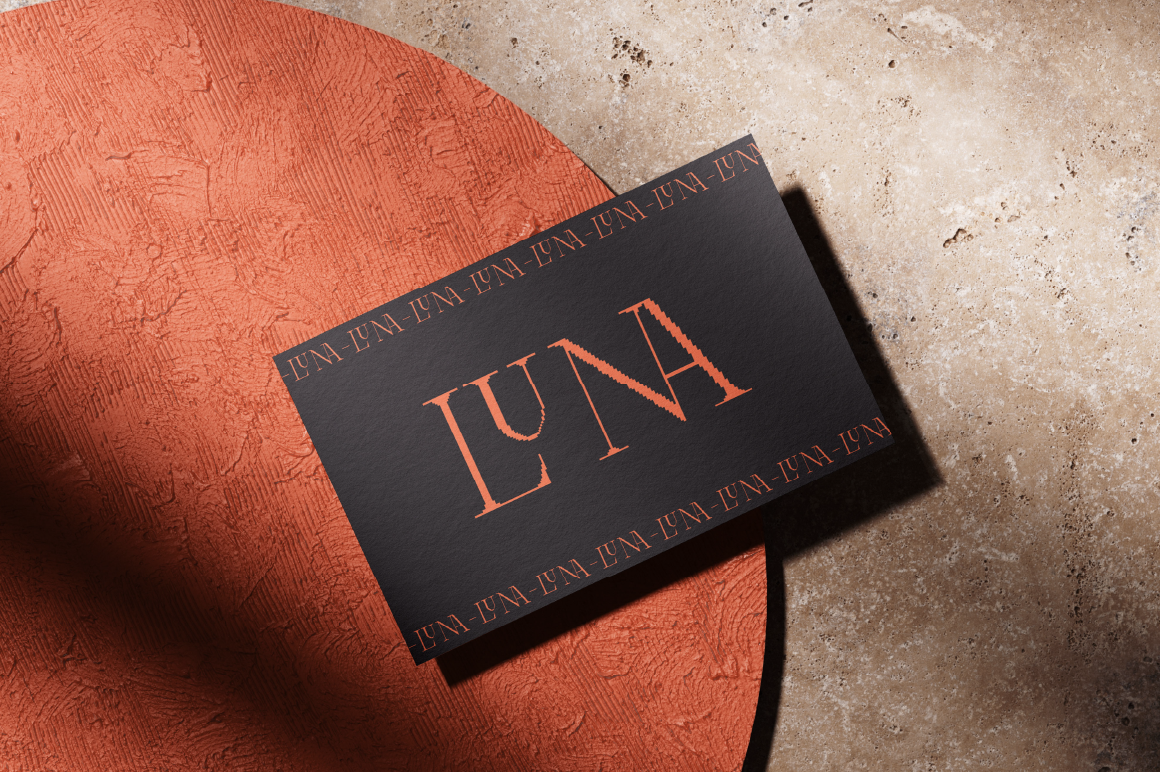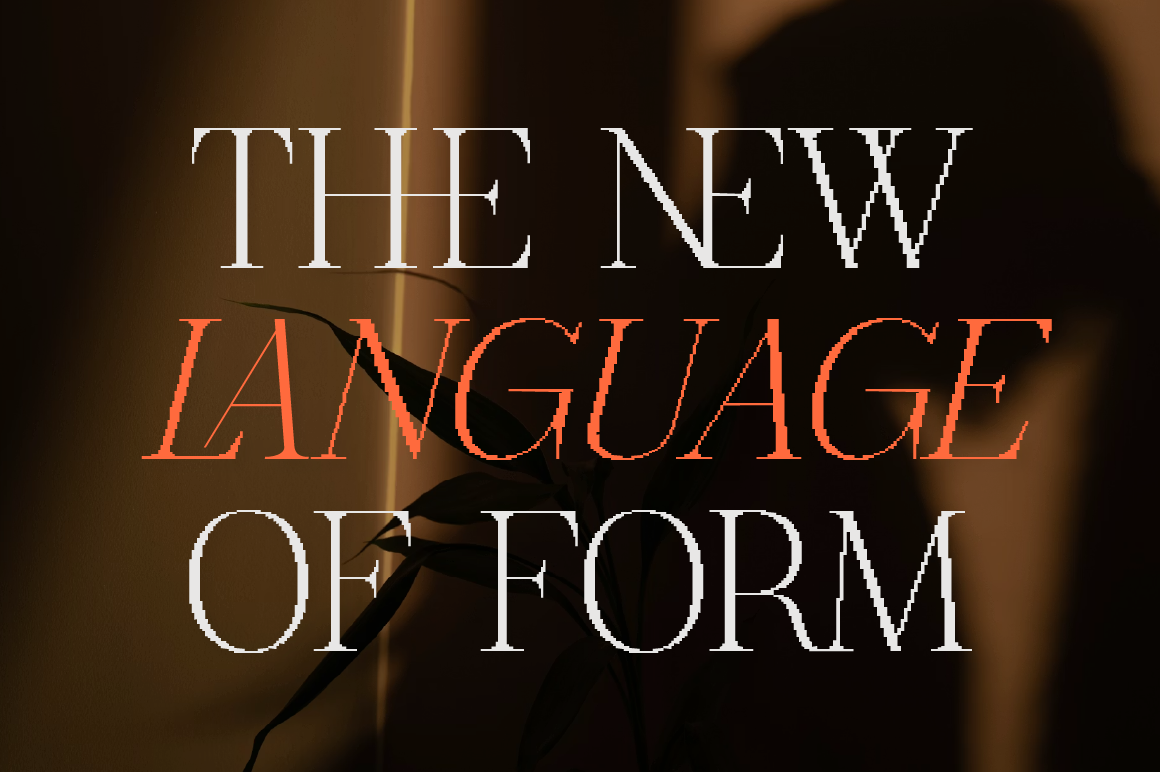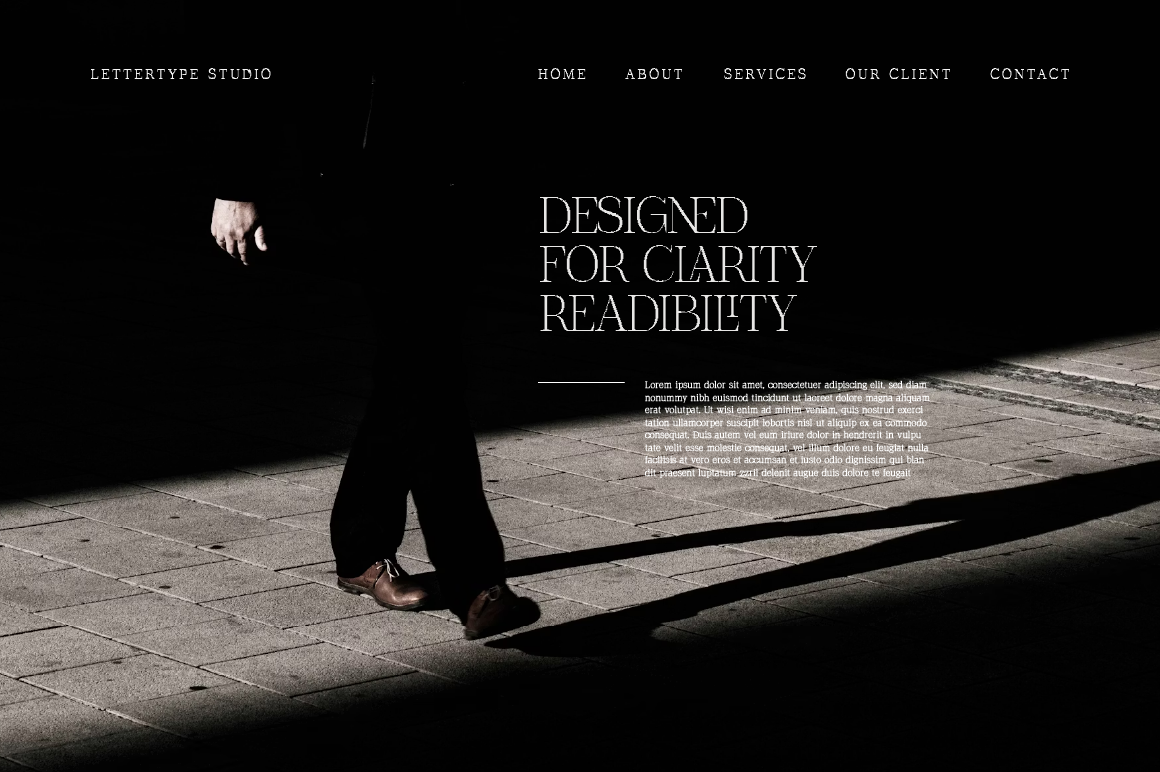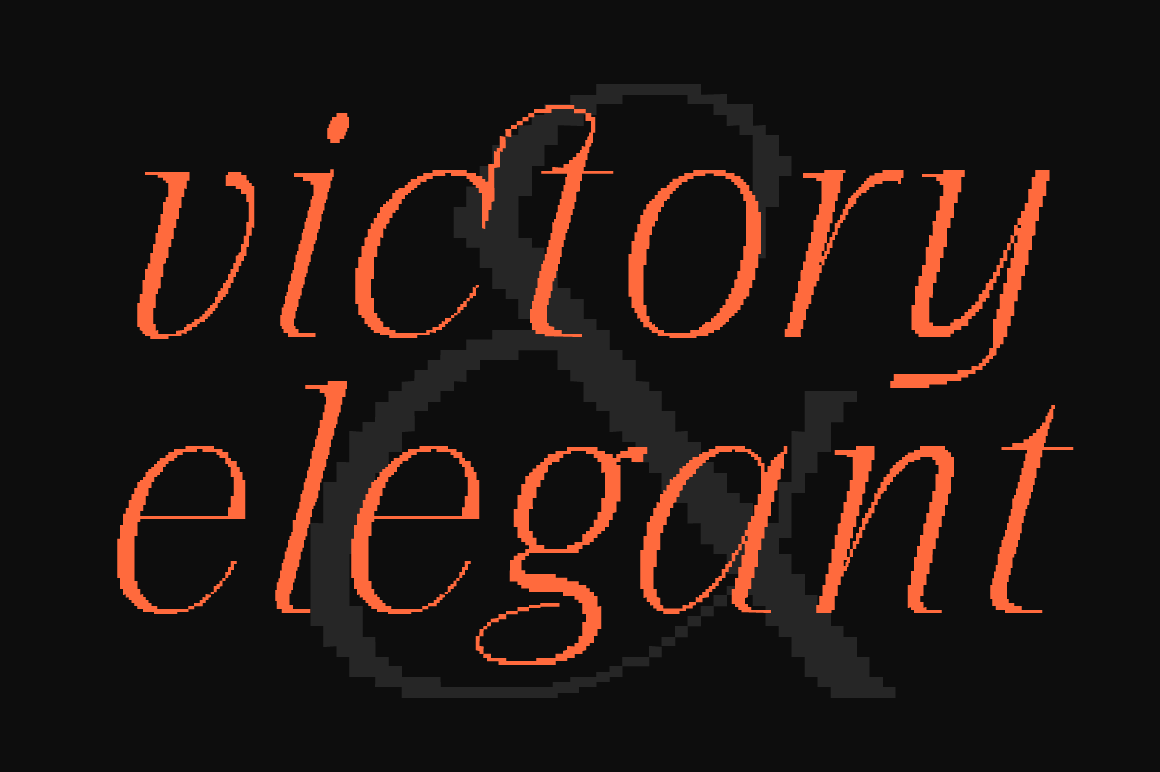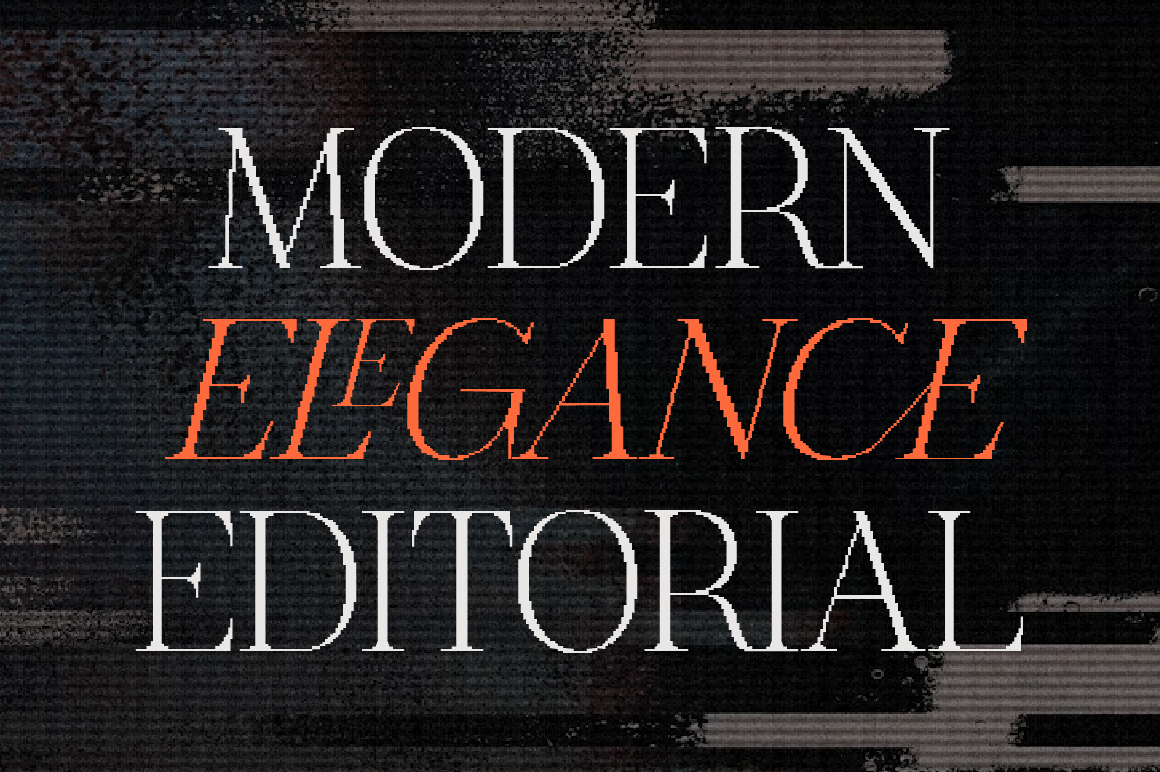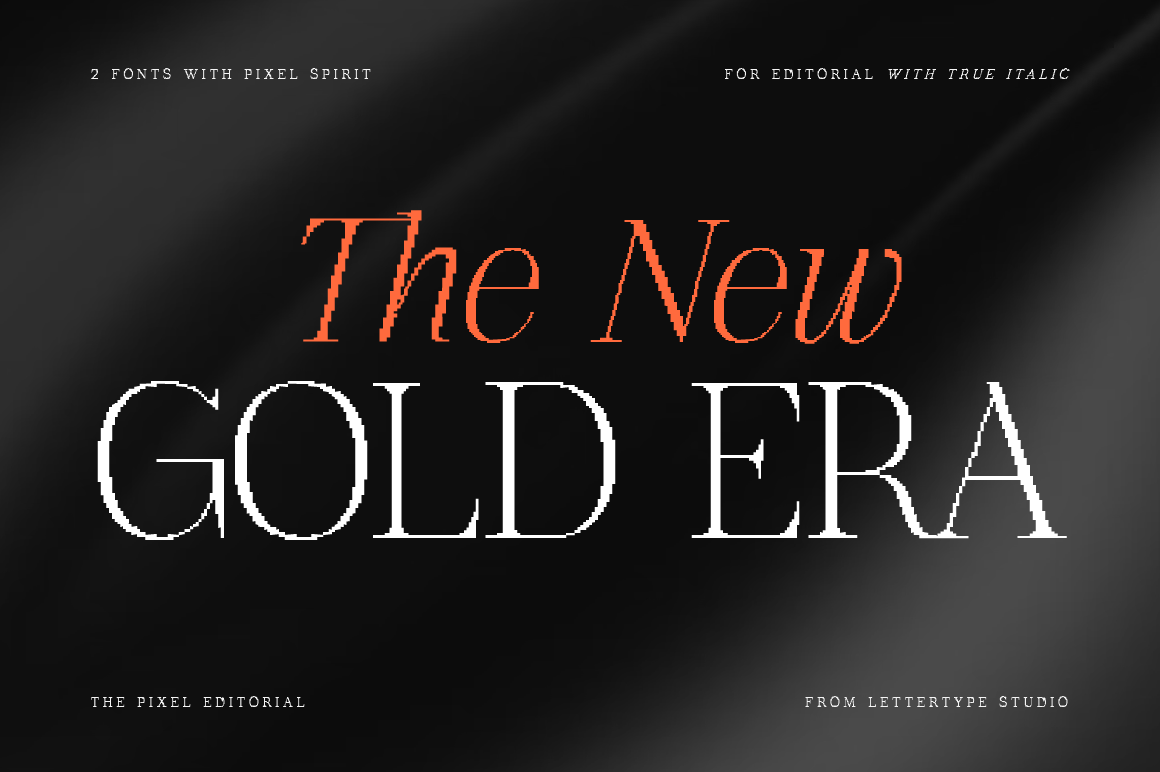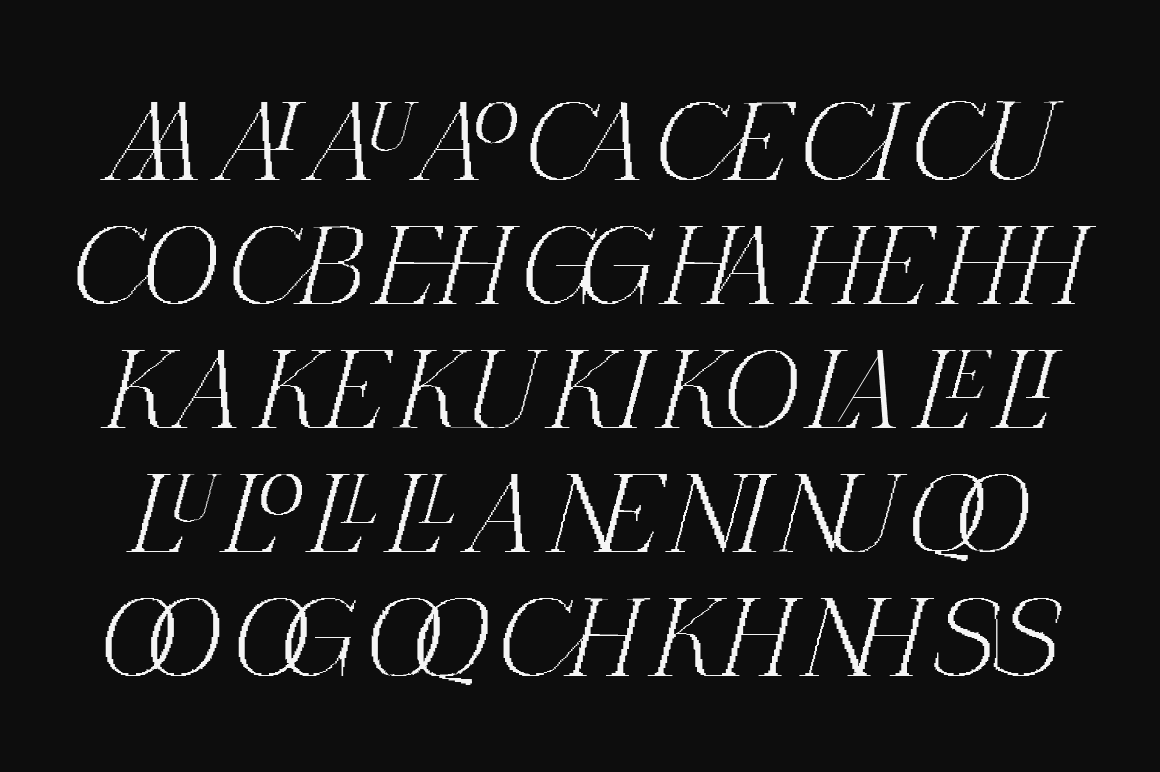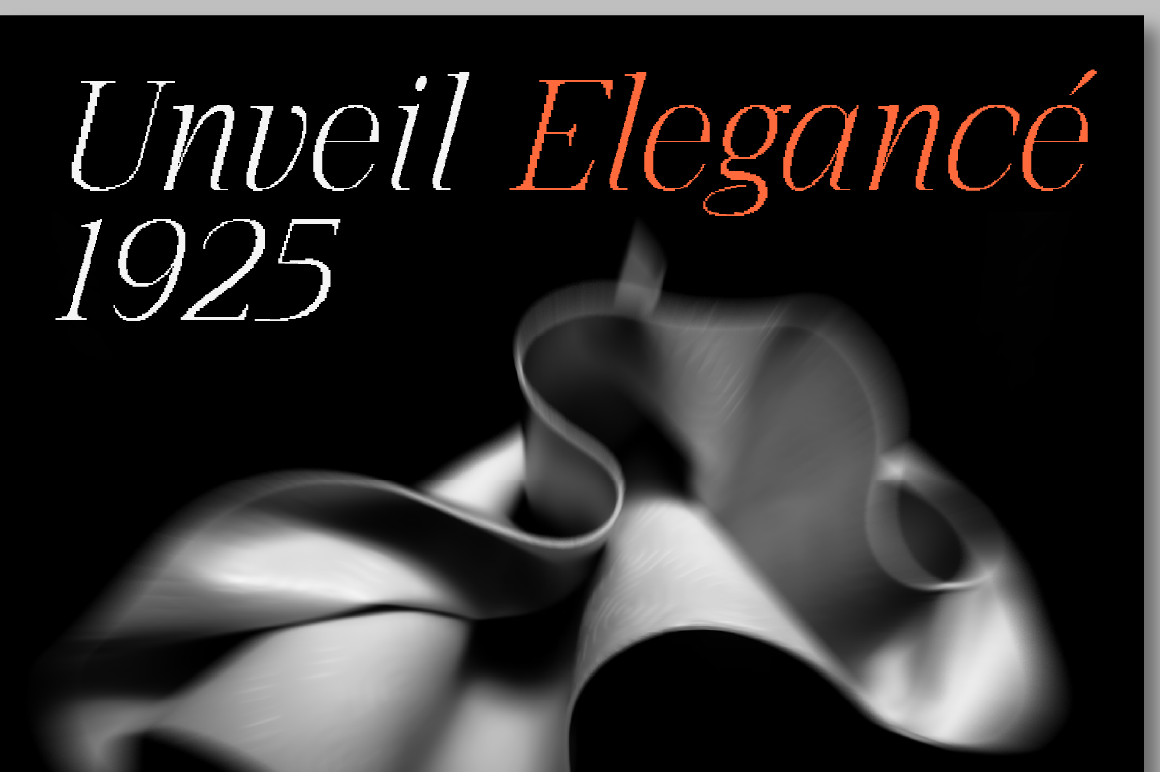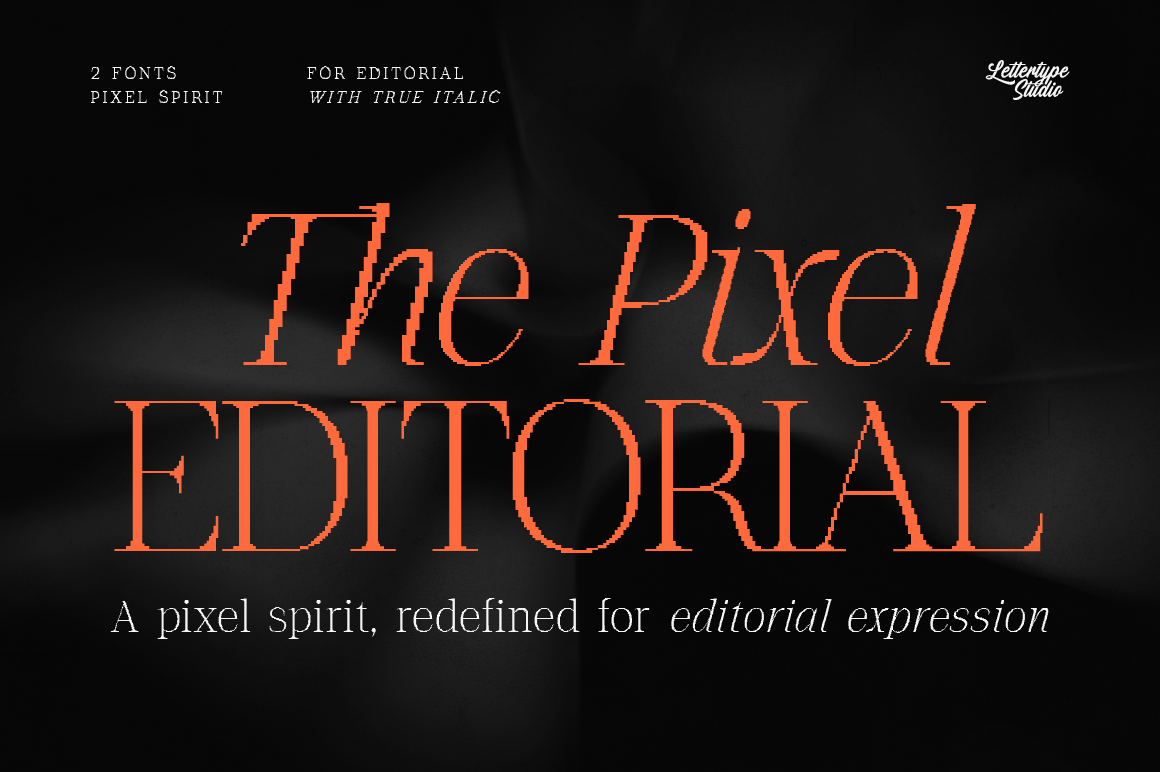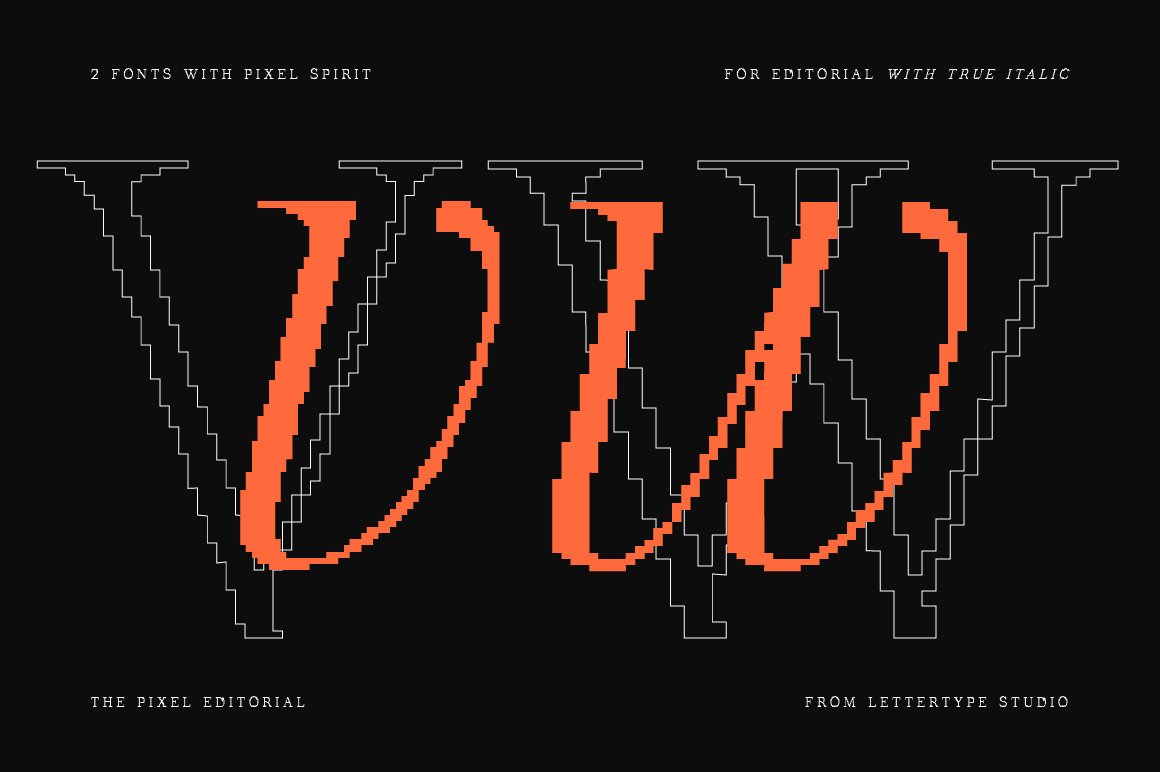
The Pixel Editorial - Regular
The Pixel Editorial - Italic
The Pixel Editorial stands at the intersection of system and expression—where pixel logic meets editorial sophistication. Designed with a strict integer coordinate structure, every form remains sharp and screen-safe, avoiding subpixel rendering issues while maintaining a clean digital presence. Yet beyond that foundation lies its defining character: controlled chaos.
This typeface intentionally breaks away from the rigidity of traditional pixel fonts. Subtle inconsistencies in height, overshoot, and spacing introduce a dynamic rhythm that feels more natural and less mechanical. It is not a bitmap revival—it is a reinterpretation. A type system that respects precision while allowing visual freedom to emerge.
As part of the Lettertype Studio direction, The Pixel Editorial represents a shift toward hybrid typography—fonts that are technically disciplined but emotionally engaging. It is crafted for designers who want the crispness of pixel structure without sacrificing the nuance required for modern editorial and branding work.
The Pixel Editorial Features:
• 2 Styles
• Upright & True Italic
• 482 Glyphs Total
• 260+ Languages Support
The Pixel Editorial